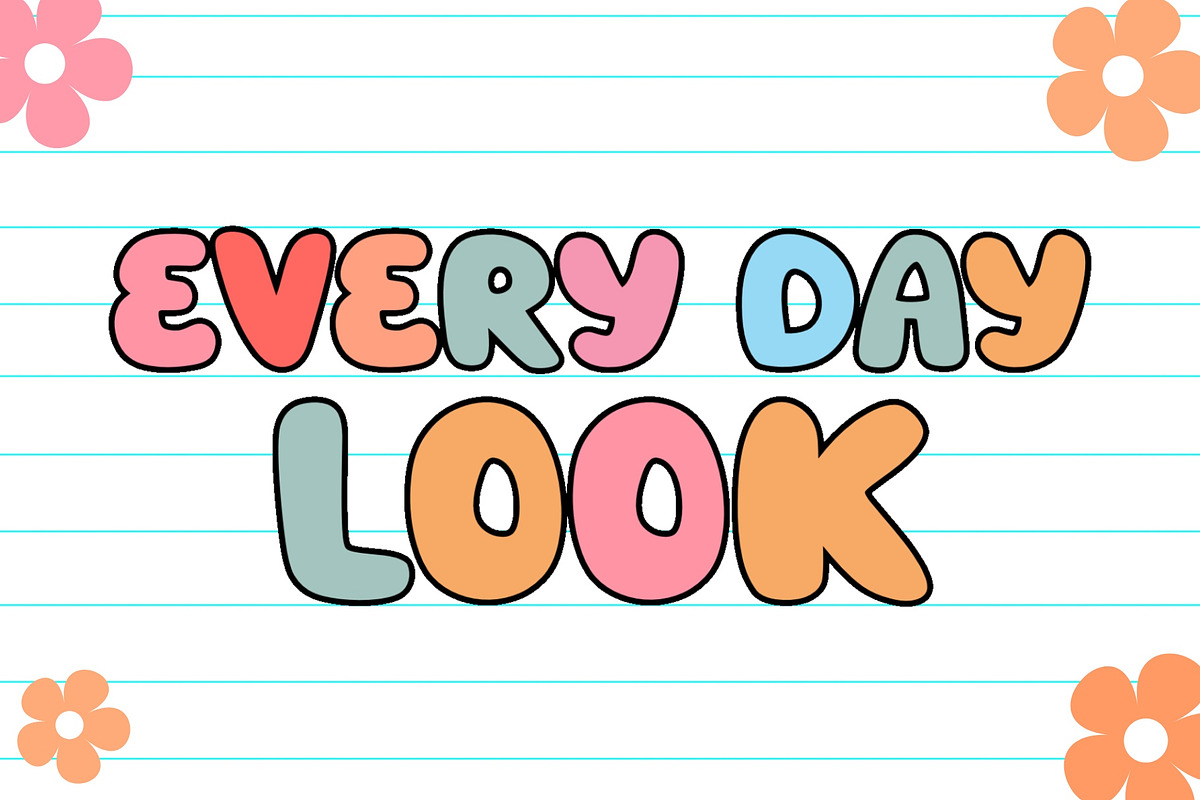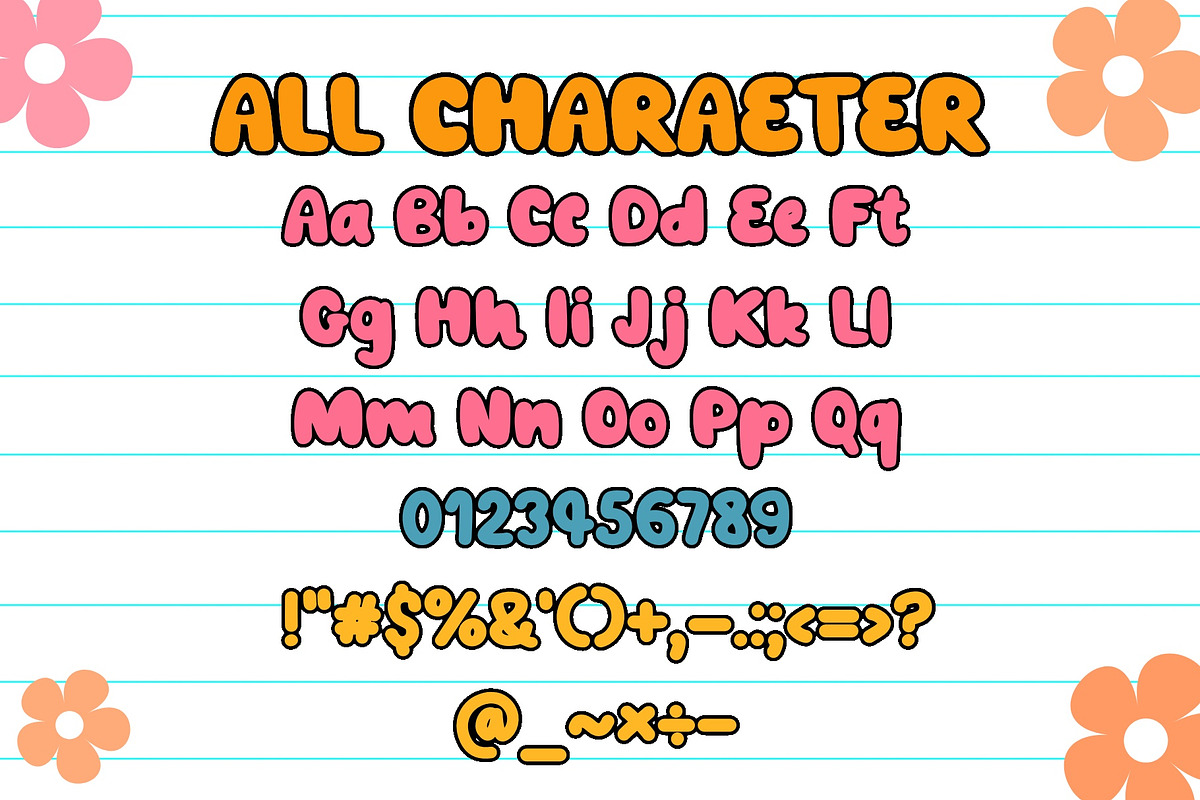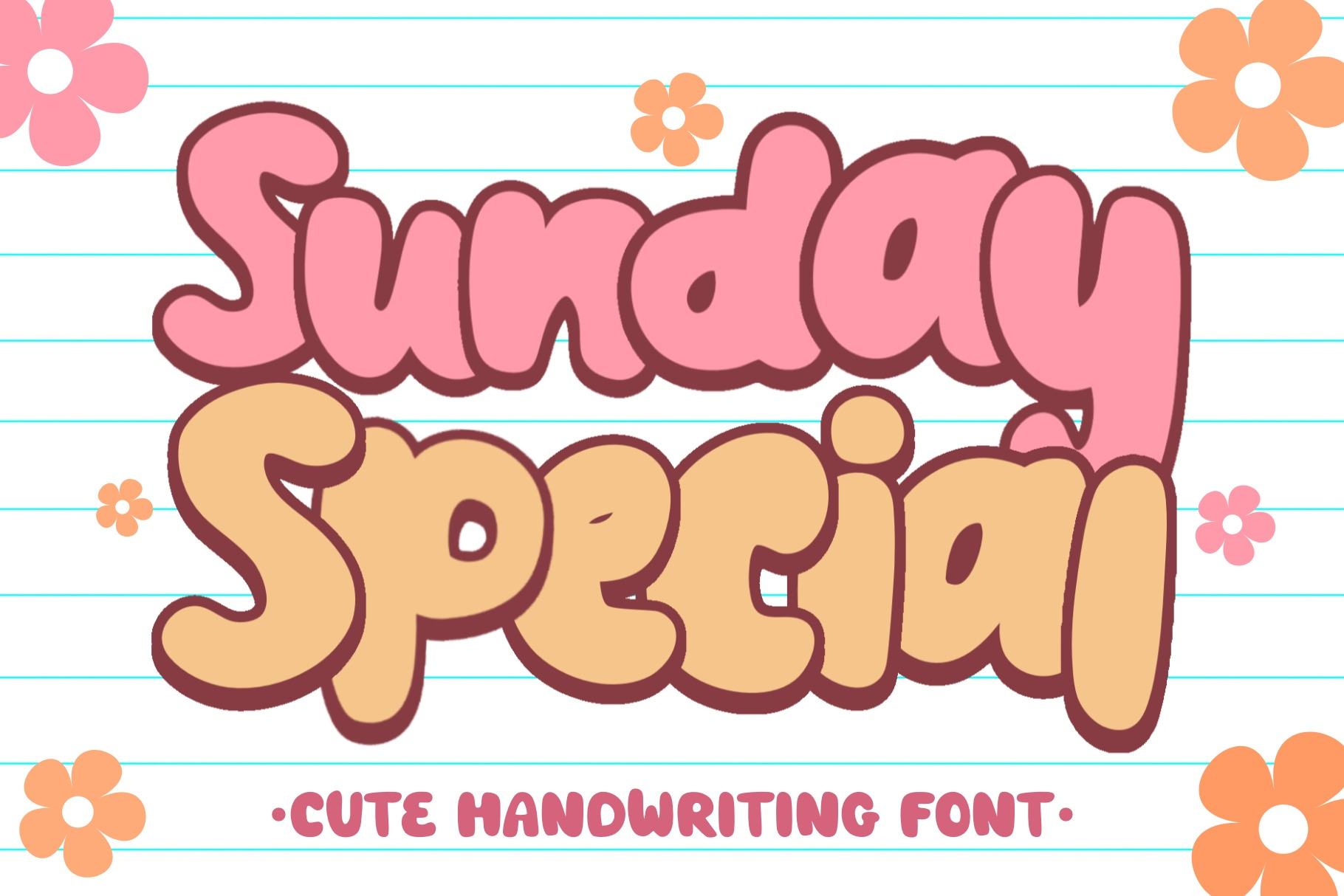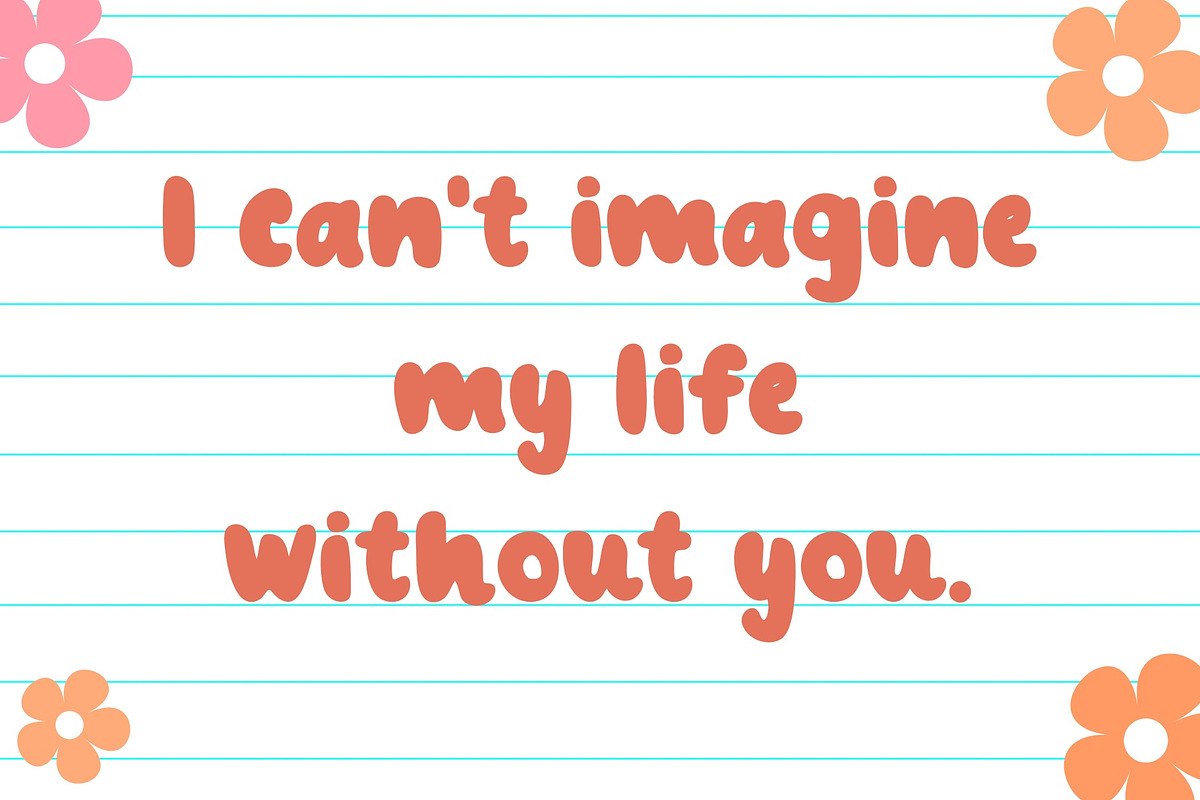
Sunday Special Font
Whether you're creating invitations, greeting cards, posters, or social media graphics, the "Sunday Special" font will elevate your designs to a whole new level. Its graceful curves and sophisticated look make it ideal for any occasion, from weddings and parties to business presentations.